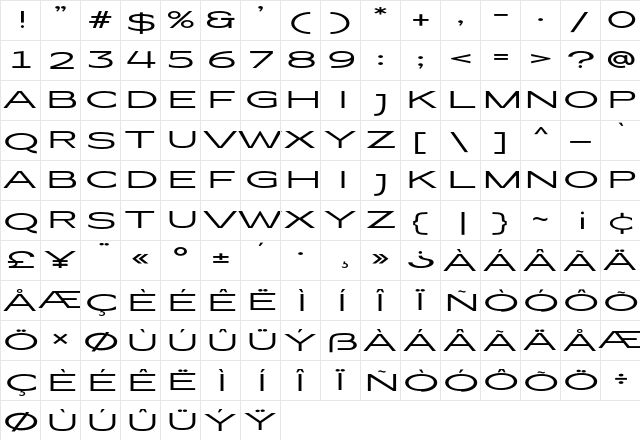
Coltrane Regular Demo
| Foundry | HIndia Studio |
| Designer | Tulus Driyo |
Design Context for Coltrane Typeface
Coltrane offers clean, dependable letterforms without strong stylistic allegiance, making it a practical choice for designers who need flexibility.